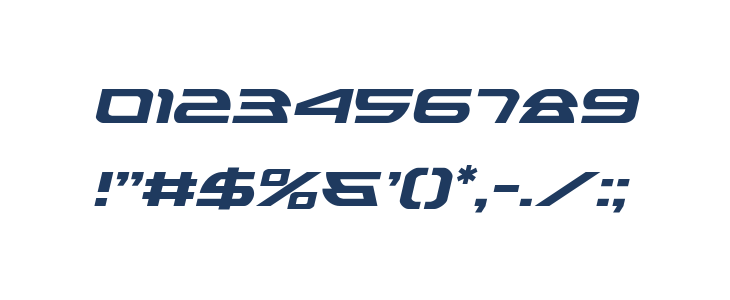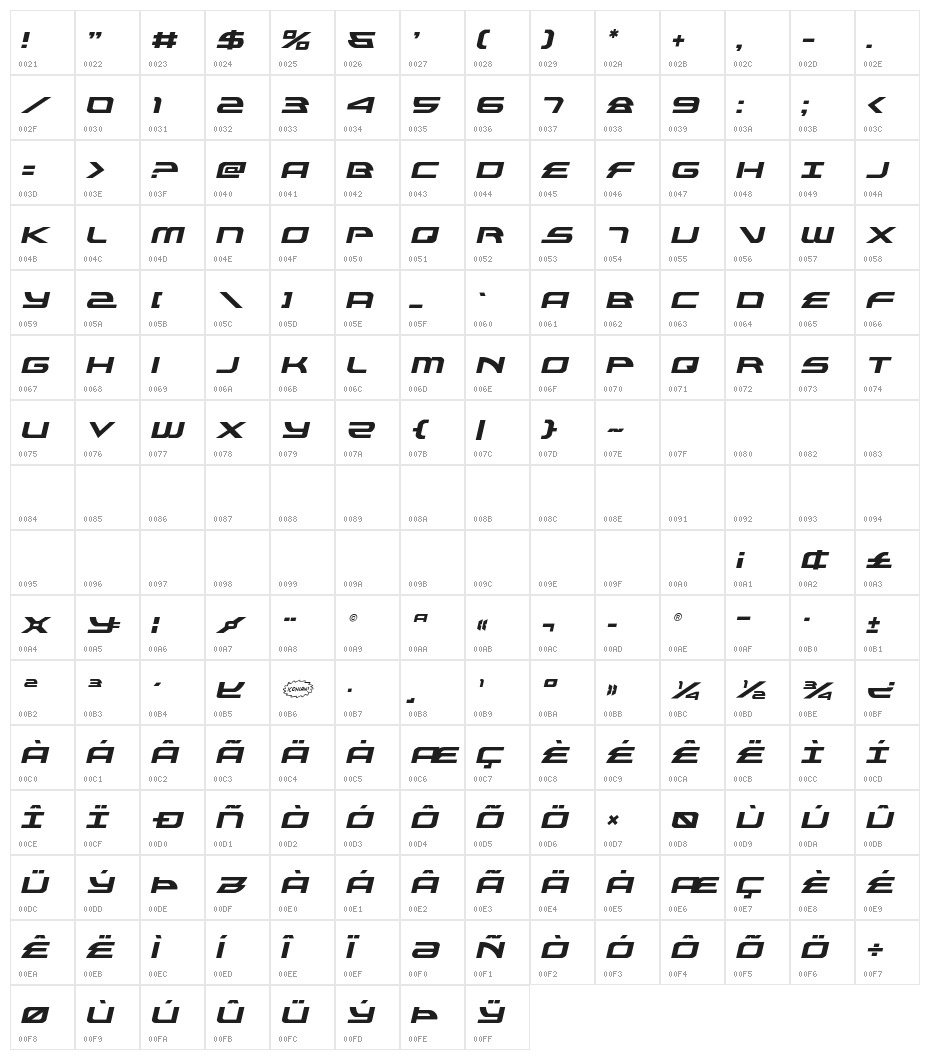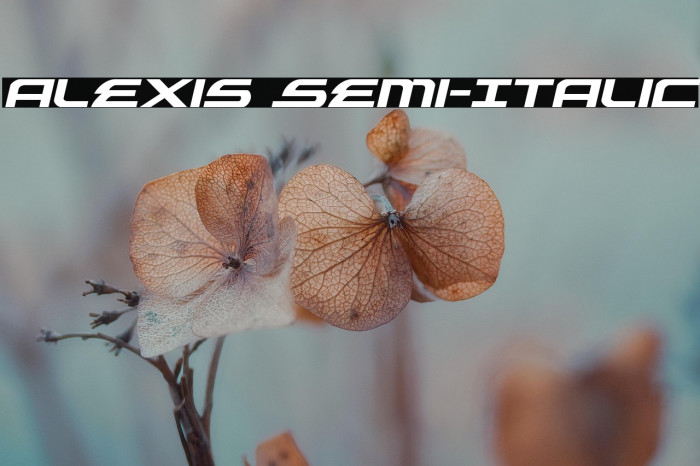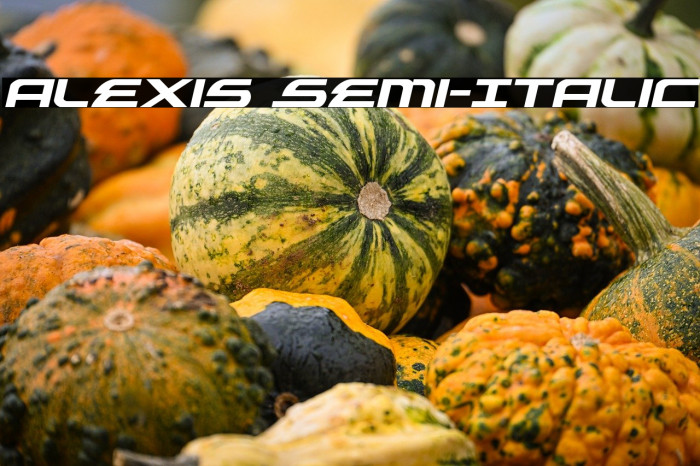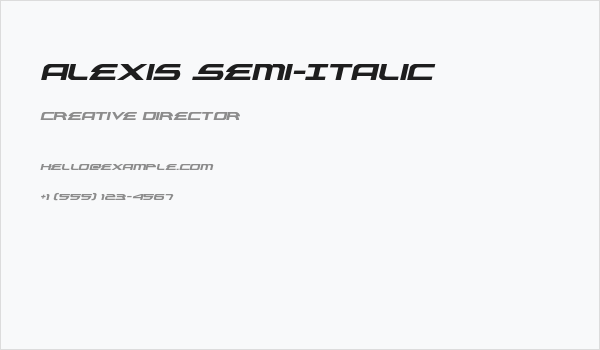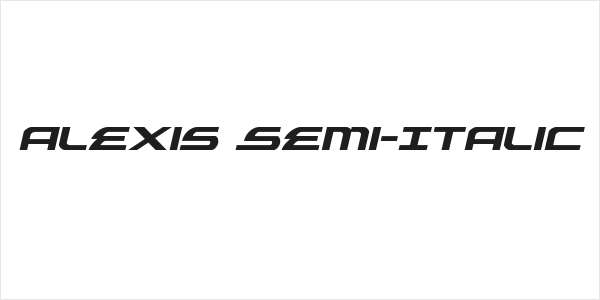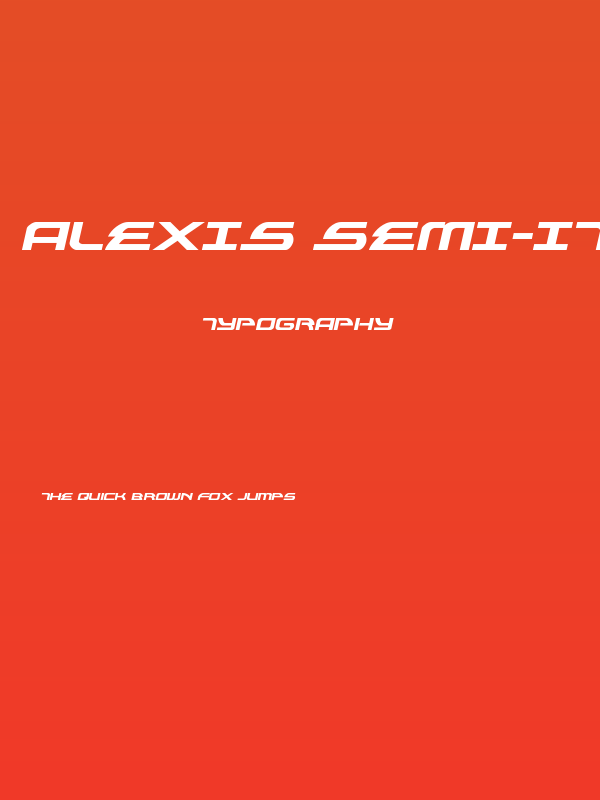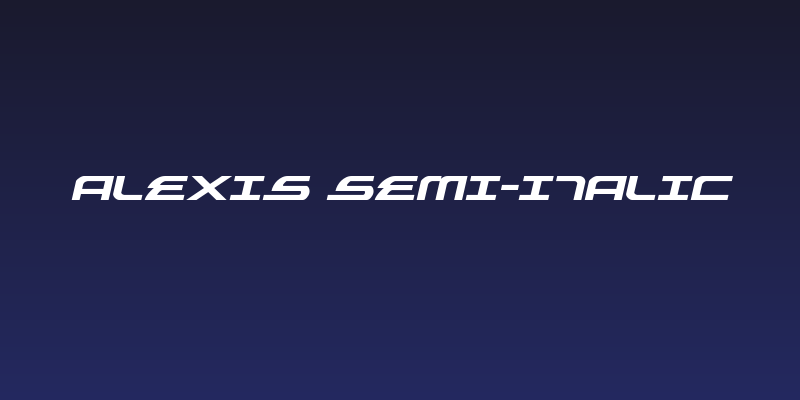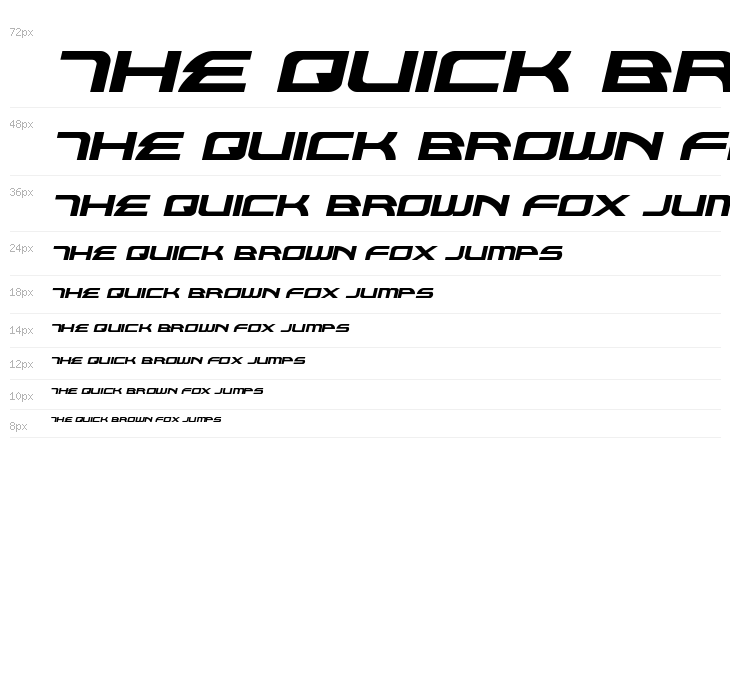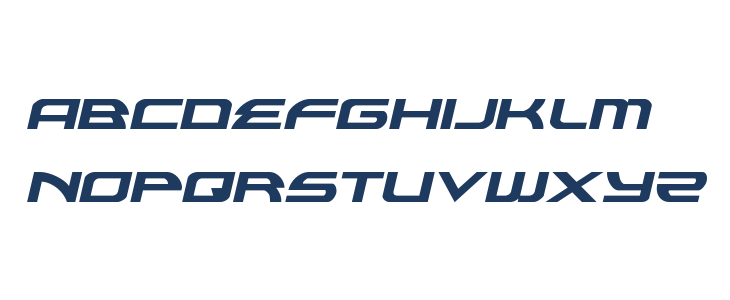
Alexis Semi-Italic Font
Alexis Semi-Italic Description
This font features a sleek, modern design with a semi-italic slant that gives it a dynamic and forward-moving appearance. The characters are bold and slightly condensed, with sharp angles and clean lines that create a futuristic and tech-inspired aesthetic. The uppercase and lowercase letters maintain a consistent style, while the numerals and special characters integrate seamlessly with the overall design. The font's geometric structure and uniform stroke width contribute to its contemporary look, making it suitable for projects that require a bold and innovative typeface.
| Overall Style | Futuristic, Tech-inspired |
| Use Case | Headlines, Logos, Digital interfaces |
| Proposed Projects | Ideal for technology branding, futuristic posters, video game titles, and digital interfaces. |